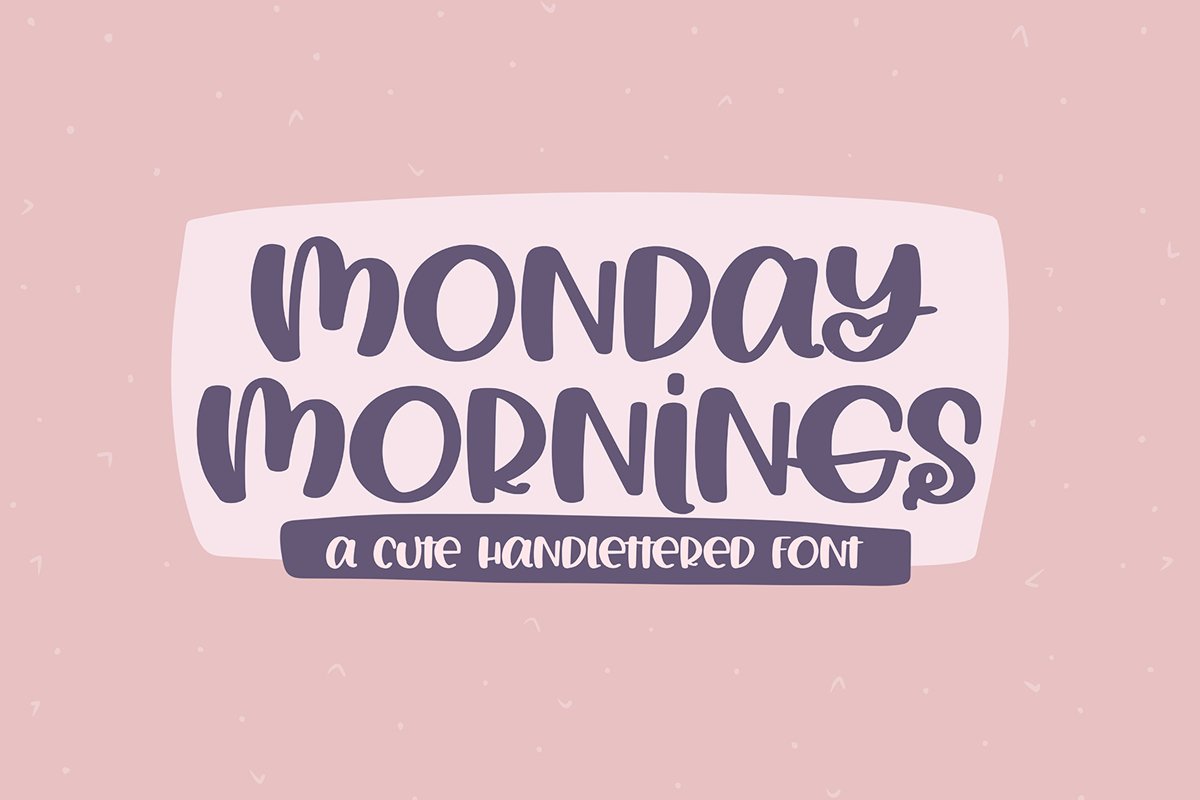
Monday Mornings - A Cute Handlettered Font
Monday Mornings is a cute handlettered font, made specifically for crafters with clean lines and minimal nodes.